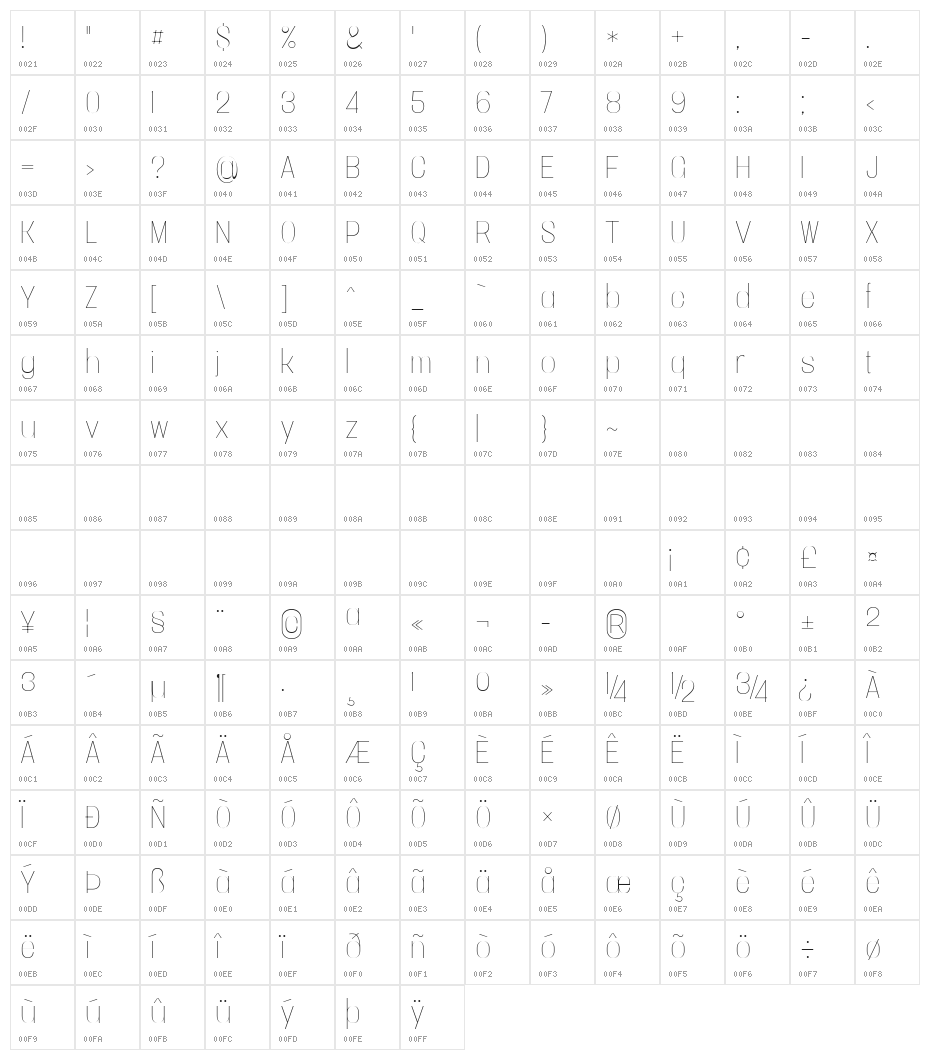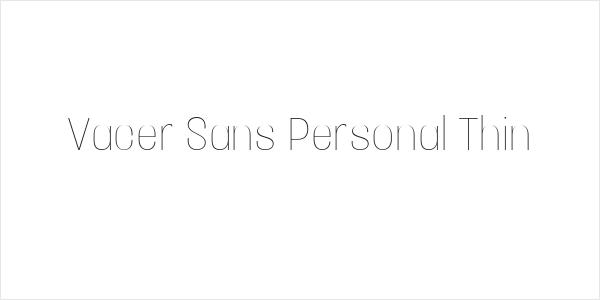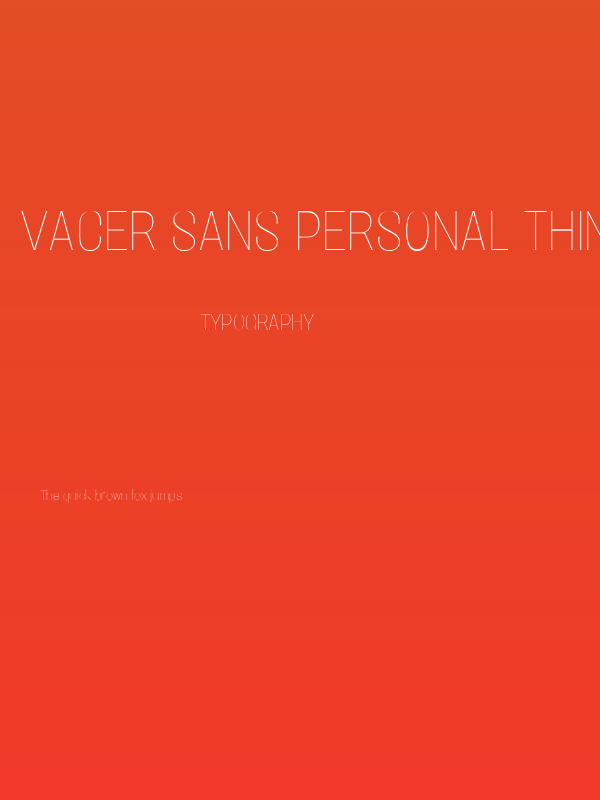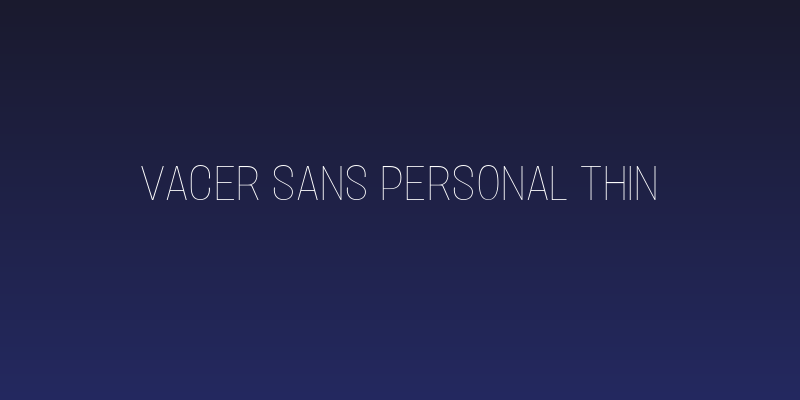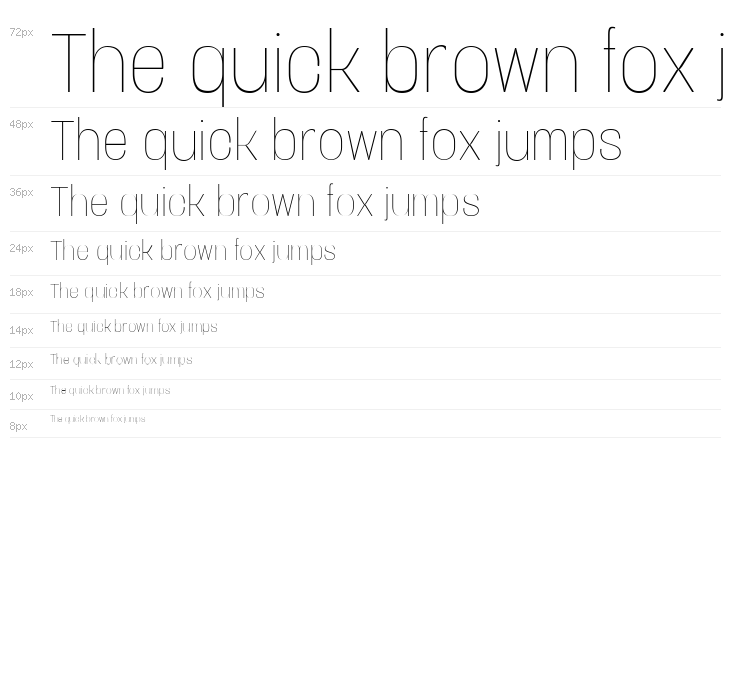
Vacer Sans Personal Thin Font
Vacer Sans Personal Thin Description
This font features a clean and minimalist design, characterized by its thin, uniform strokes and geometric shapes. The uppercase and lowercase letters maintain a consistent height and width, creating a harmonious and balanced appearance. The numerals and special characters are designed with the same thin lines, ensuring a cohesive look across all elements. The font's simplicity and elegance make it suitable for modern and contemporary design projects, where clarity and readability are essential.